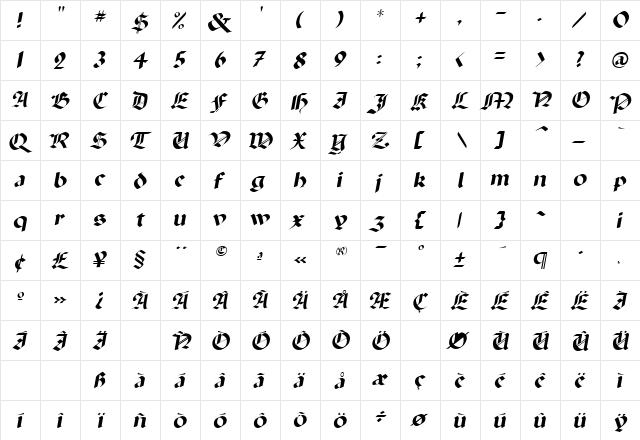
Kilung Oblique
Design Context for Kilung Typeface
Kilung is a composed and adaptable typeface that performs quietly and consistently across a wide range of design contexts. Its italic angle brings a sense of urgency and motion to the letterforms.